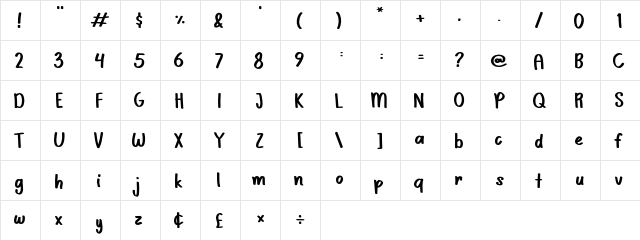
Scary Candy - Personal Use Regular
Design Context for Scary Candy - Personal Use Typeface
Scary Candy - Personal Use leans into the macabre with letterforms designed to disturb and intrigue in equal measure.
Ideal for Halloween projects, horror film titles, haunted house signage, and dark editorial design.
Font Pairing: Pair with a clean neutral sans-serif for body copy to let Scary Candy - Personal Use's character lead without overwhelming the composition.
Pro Tip: Scary Candy - Personal Use works best as a headline or focal element. Pair it against plain, neutral body text to amplify the contrast.